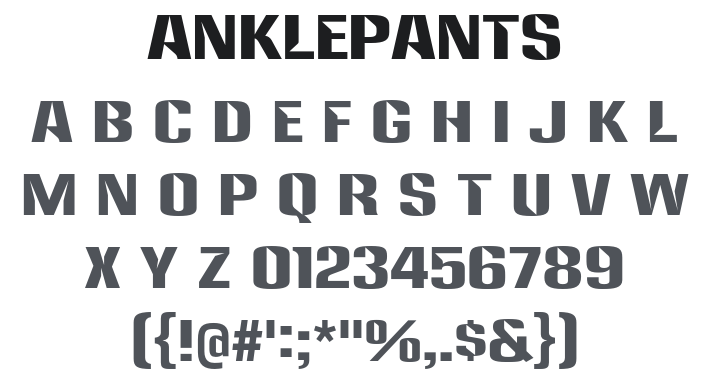
Anklepants Font
About Anklepants
Anklepants is a bold, chunky geometric sans-serif inspired by the display typeface once used by Westinghouse-owned CBS radio stations. Its tightly packed, angular letterforms carry a commanding industrial presence with a retro 1970s broadcast flair. Great for radio or media branding, strong editorial headlines, retro-tech posters, and any project needing authoritative, no-nonsense display type.